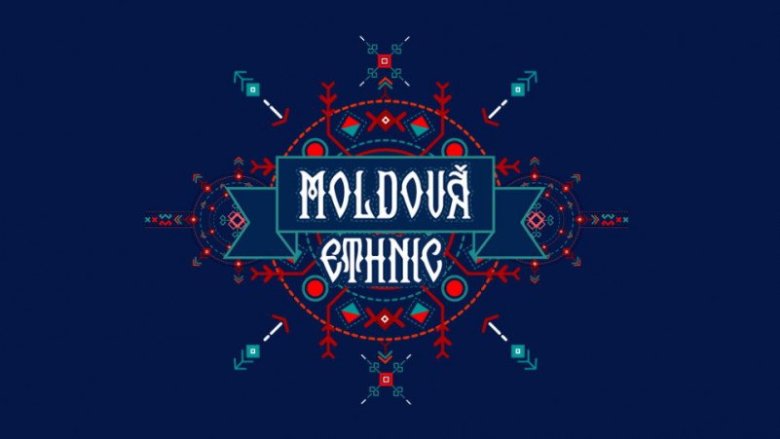
Moldova Ethnic Free Font
The font is based on ancient Moldavian motifs found in various areas of the old culture and ethnic layers of the time. The font is free.